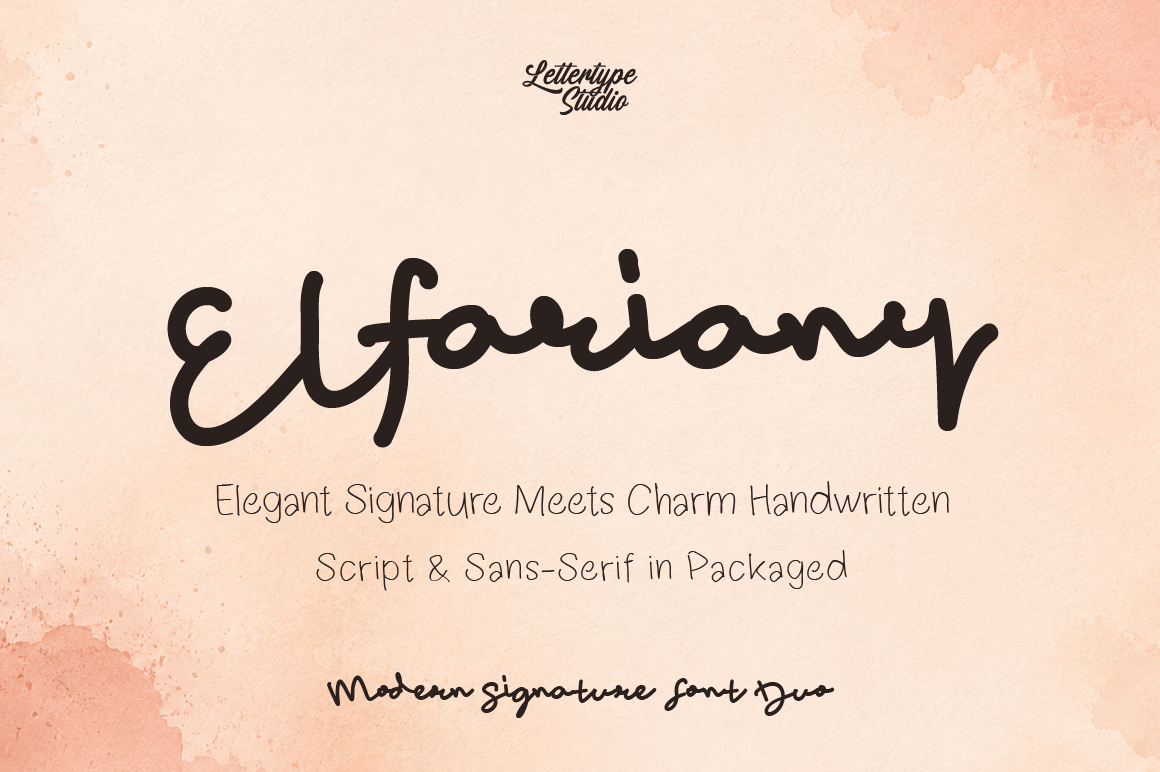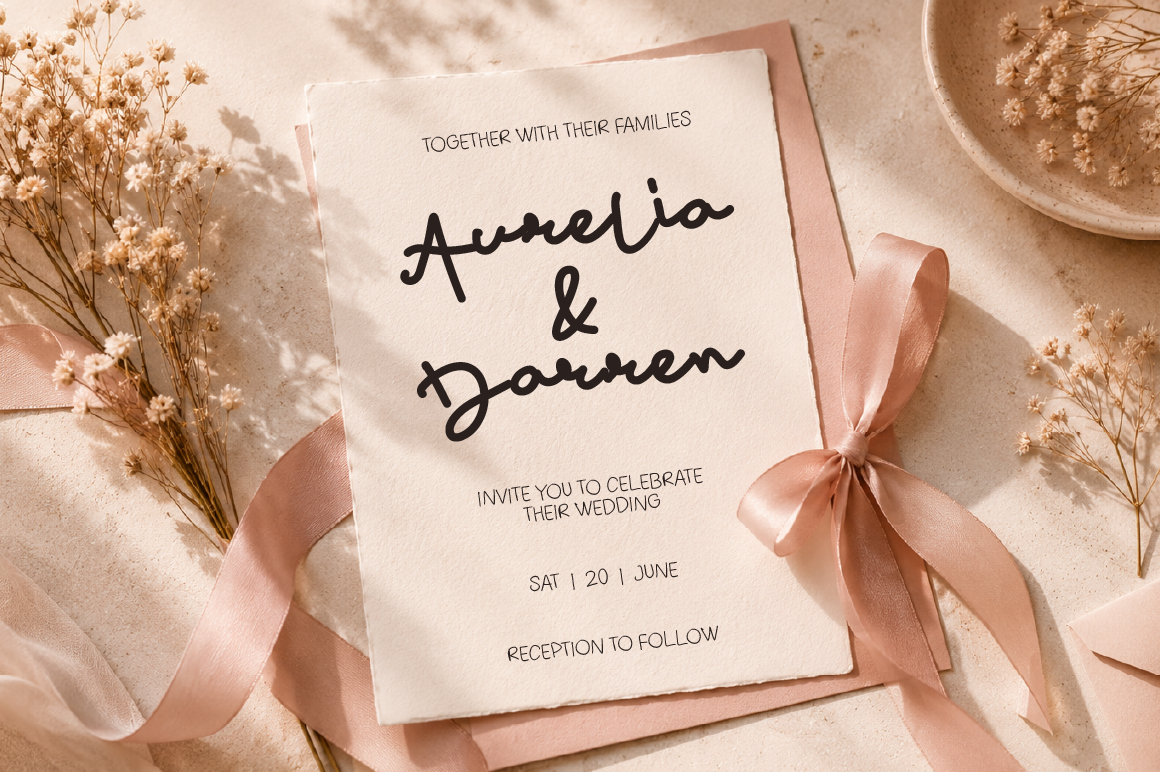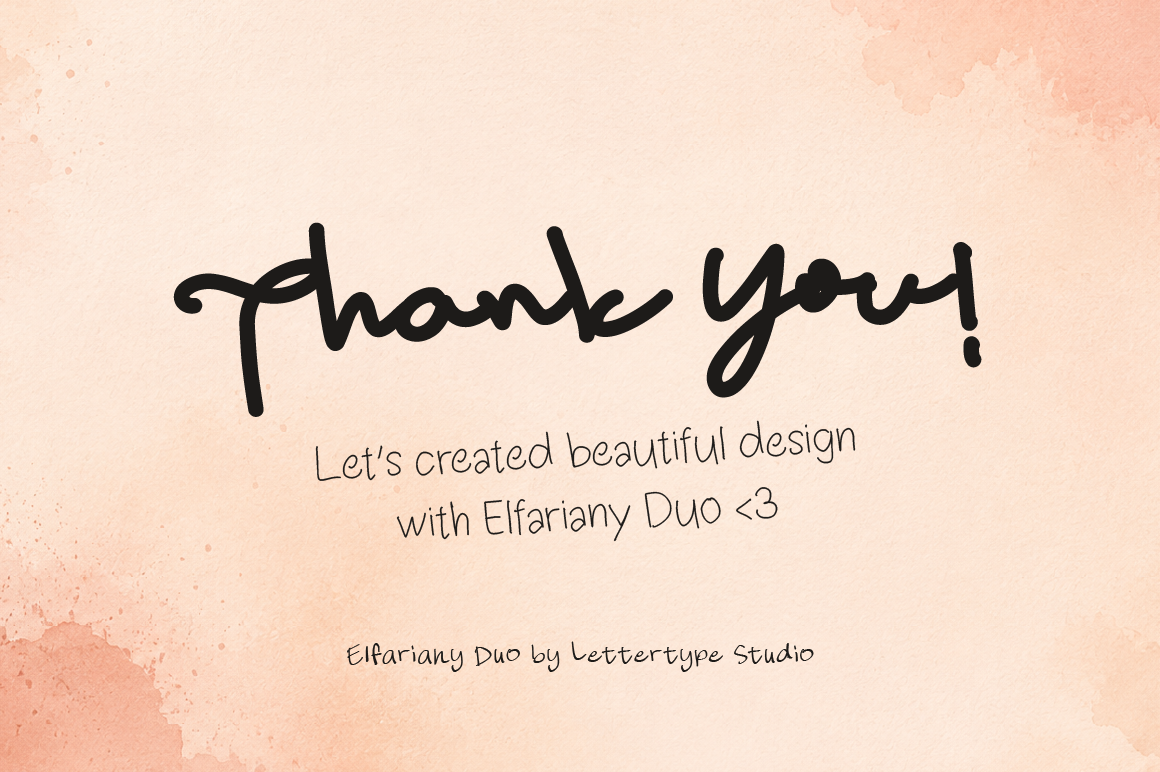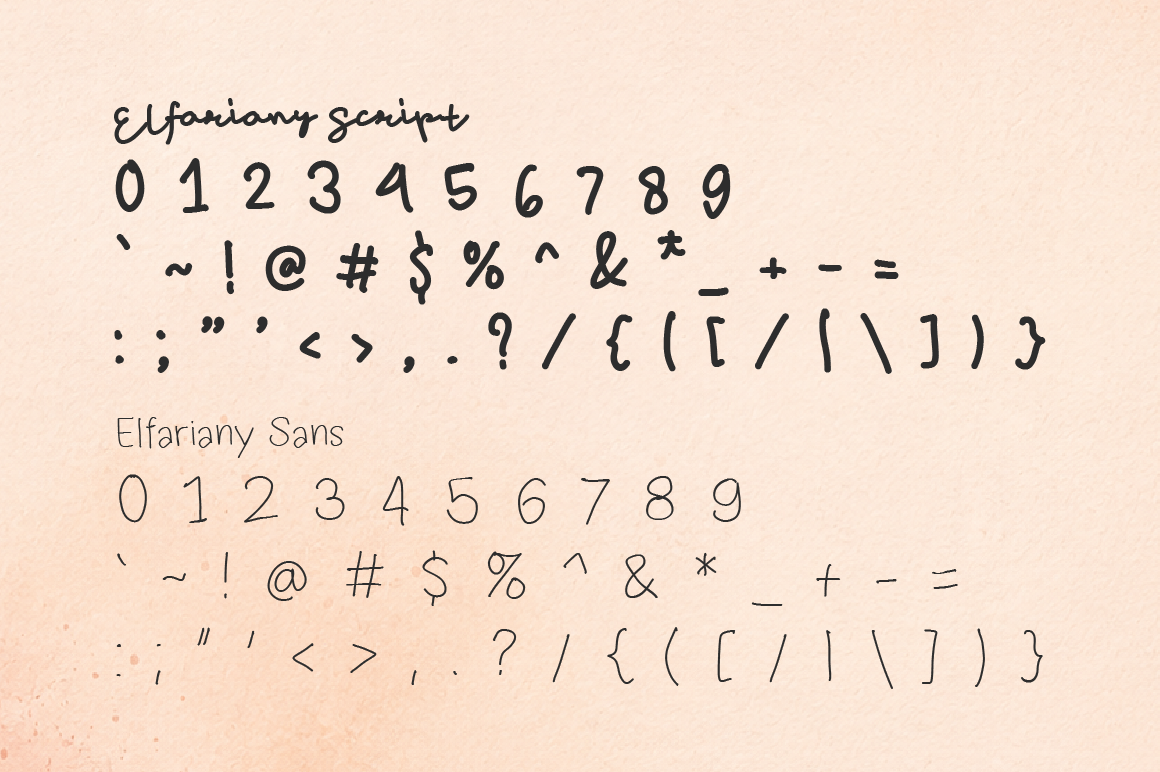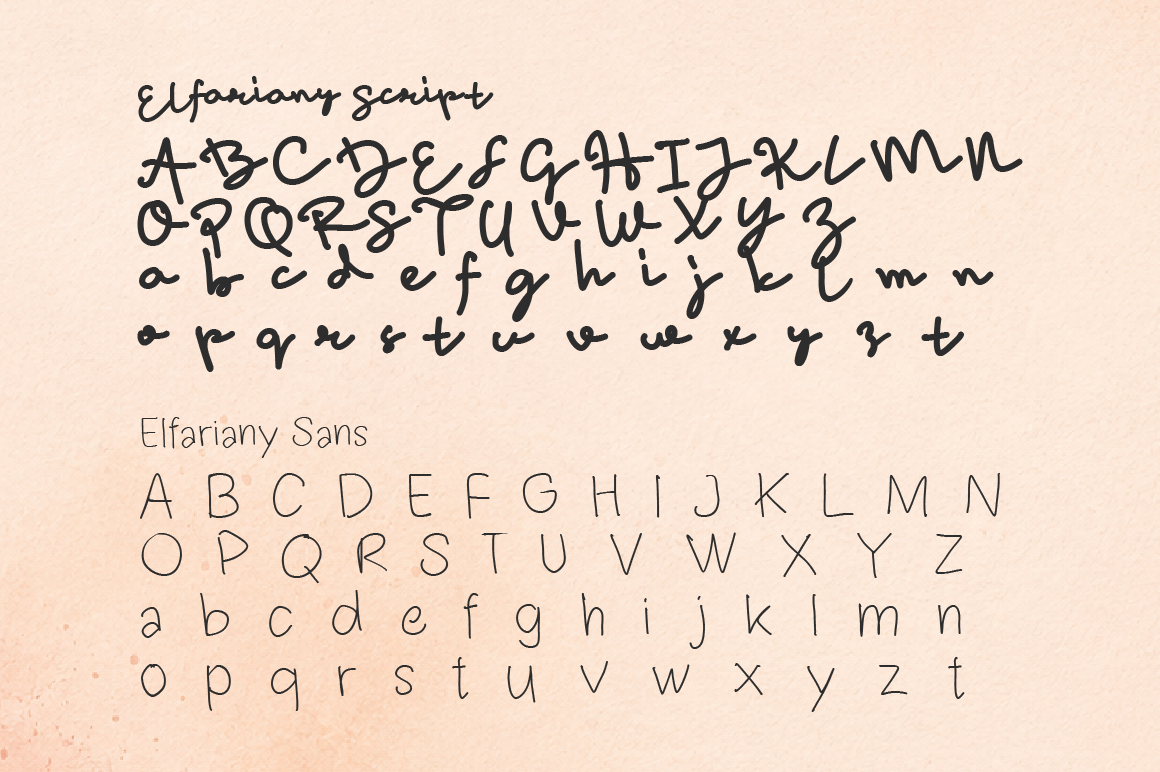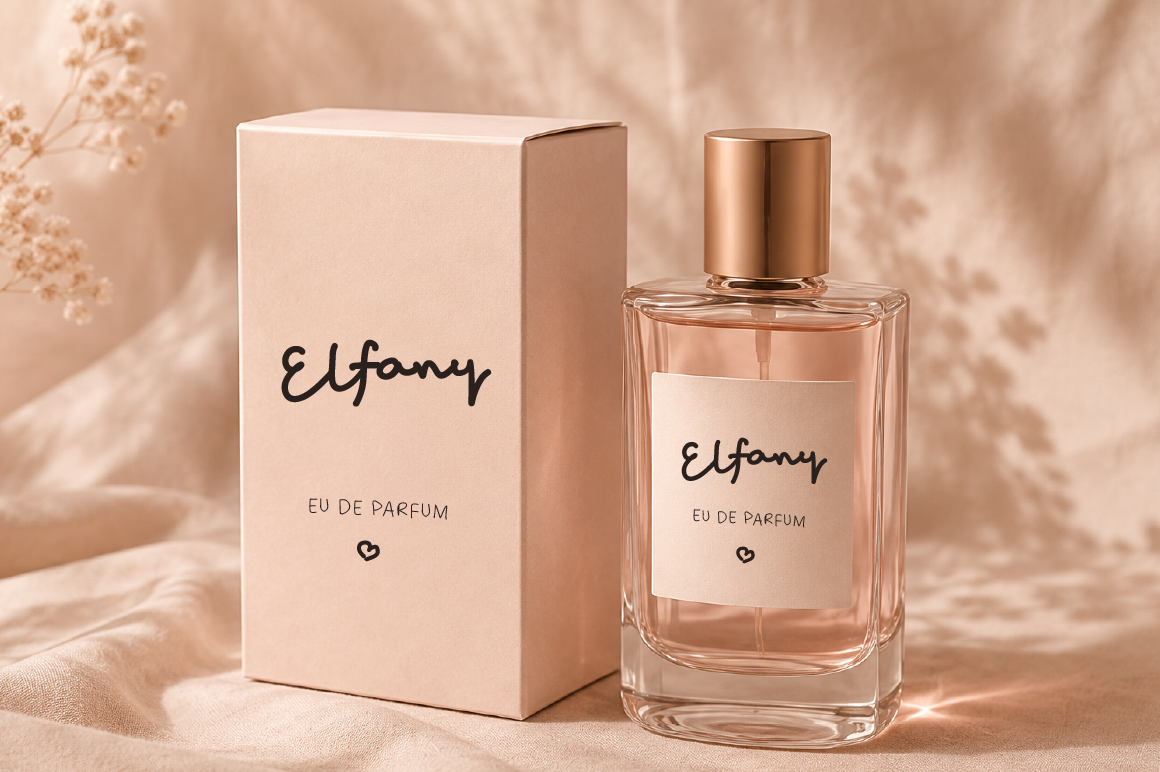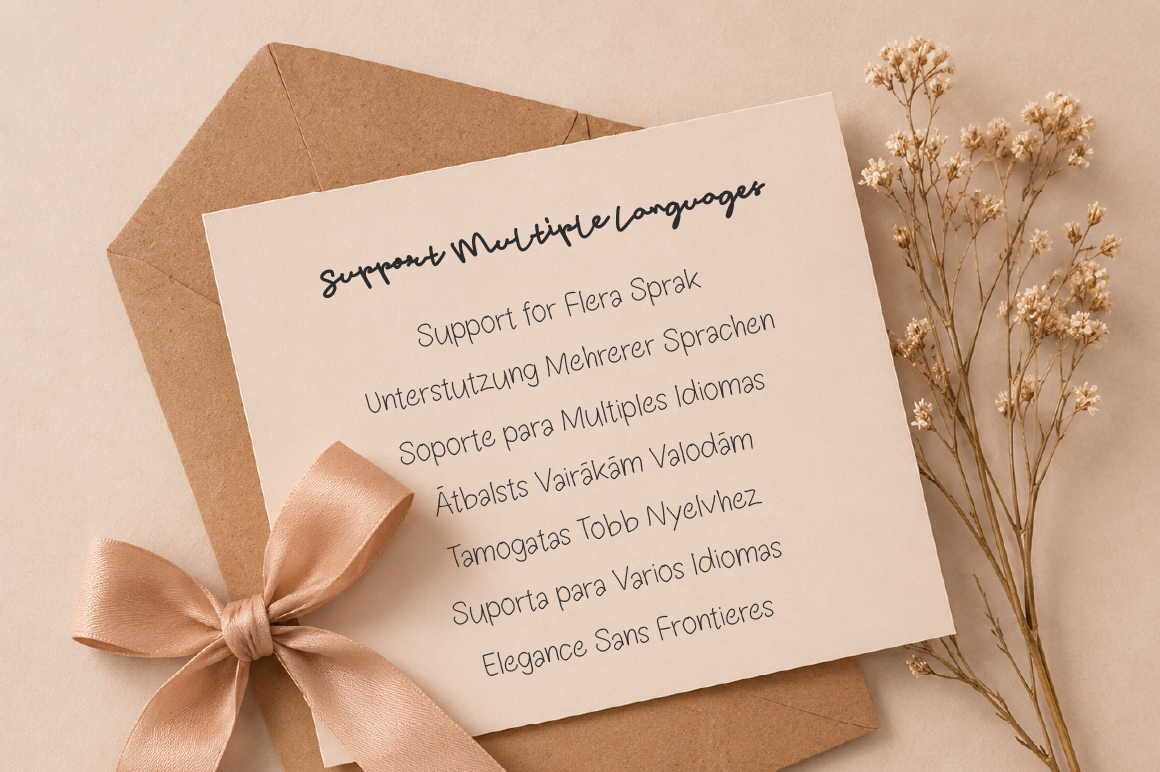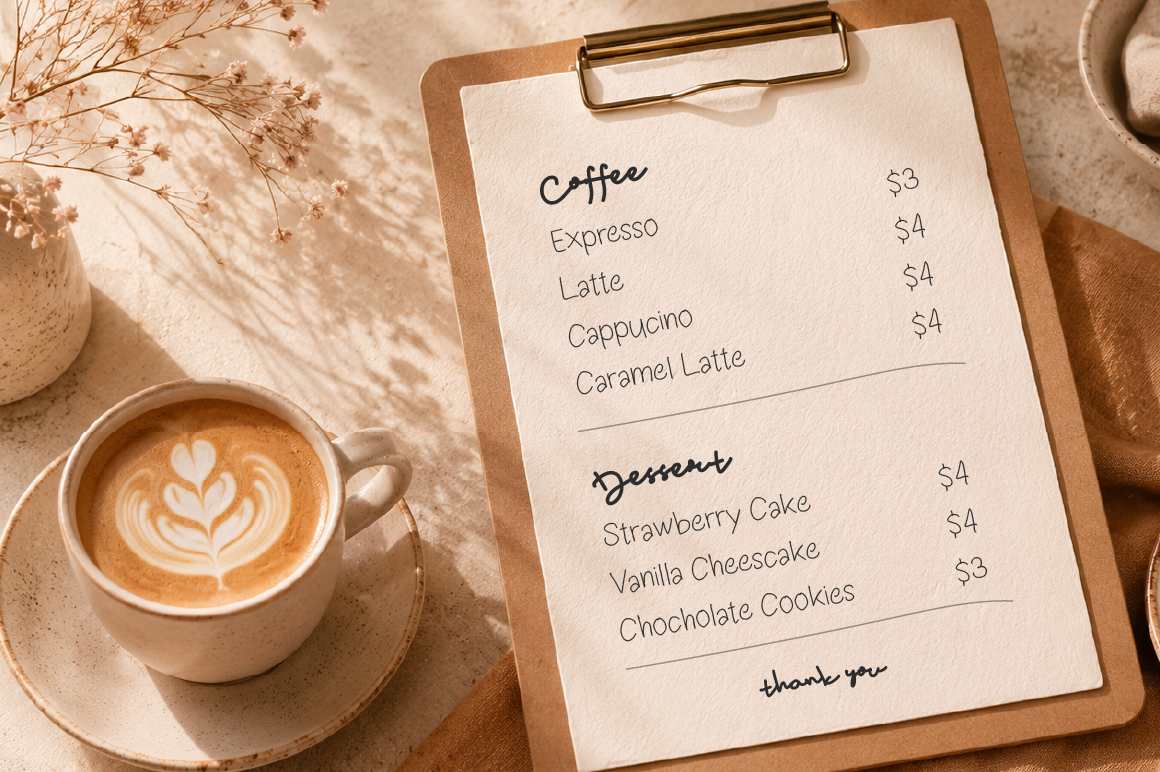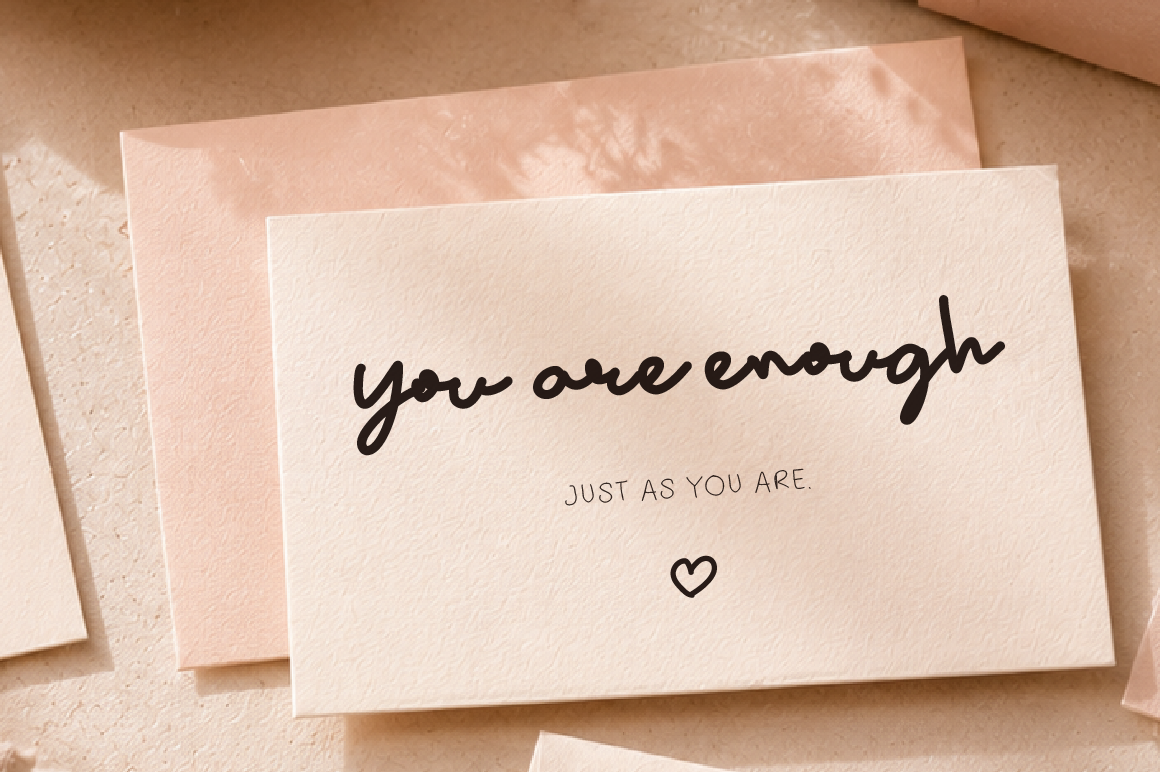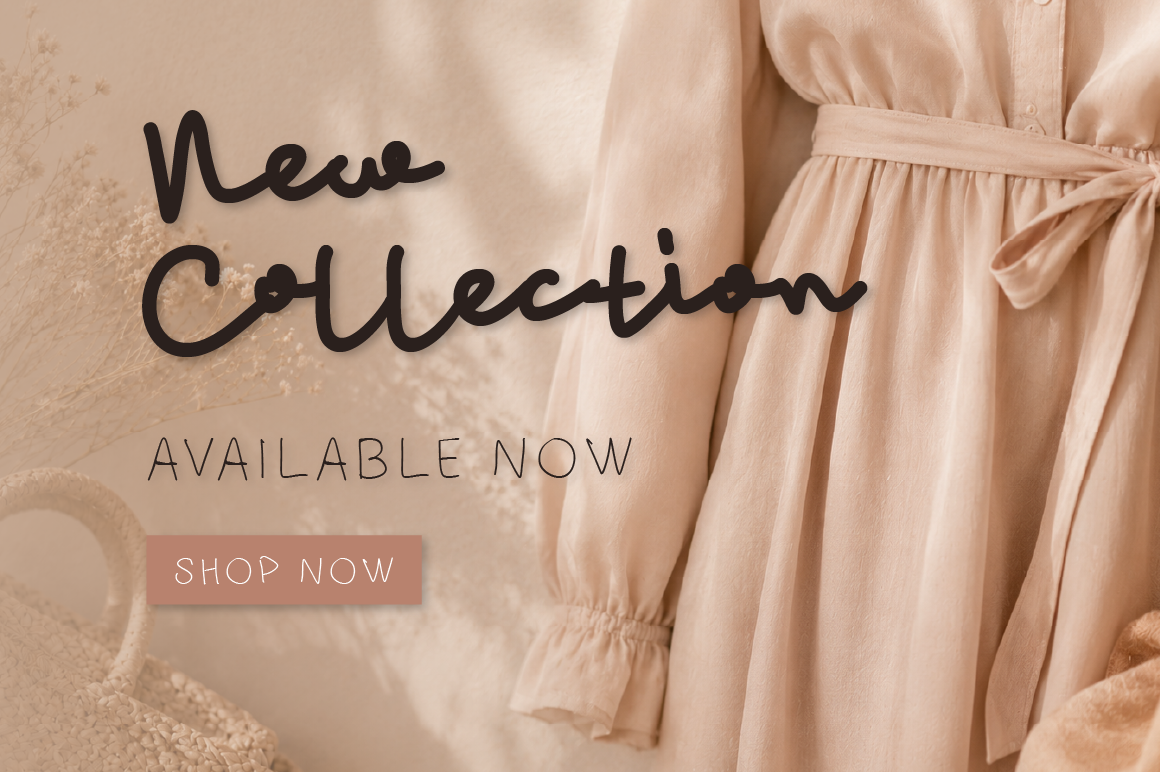
Elfariany Signature Font Duo combines two complementary handwritten styles into one cohesive branding toolkit. The expressive script delivers a confident personality with natural handwritten rhythm, while the clean sans companion adds balance, readability, and modern versatility. This combination creates a flexible font system suitable for both expressive headlines and supporting typography.
Created for modern visual creators, Elfariany works beautifully across feminine branding, boutique packaging, skincare labels, wedding invitations, social media templates, journaling designs, cafe branding, and lifestyle editorials. The duo structure allows designers to build layered typography compositions without needing additional paired fonts.
With its warm handwritten character and modern commercial usability, Elfariany is designed to feel personal, approachable, and visually memorable. Whether used for logos, content branding, product packaging, or Canva templates, this font duo delivers a polished handwritten aesthetic that remains clean and highly functional.
Elfariany Duo Features:
- 2 Styles
- Sans-Serif & Script
- 386 Glyphs Total Each Font
- 260+ Languages Support
Perfect For:
- Feminine Branding
- Wedding Design
- Social Media Content
- Packaging & Labels
- Journaling & Planner Design